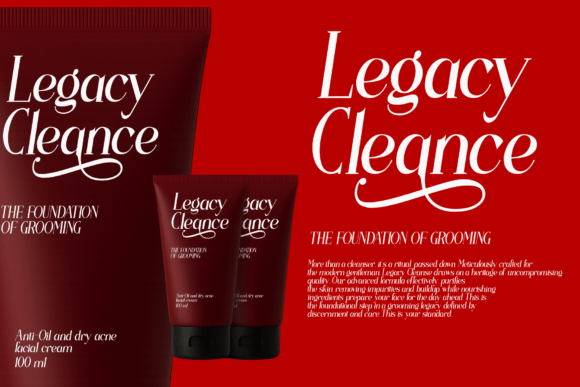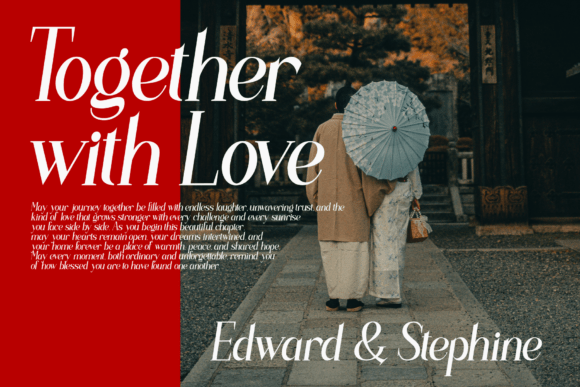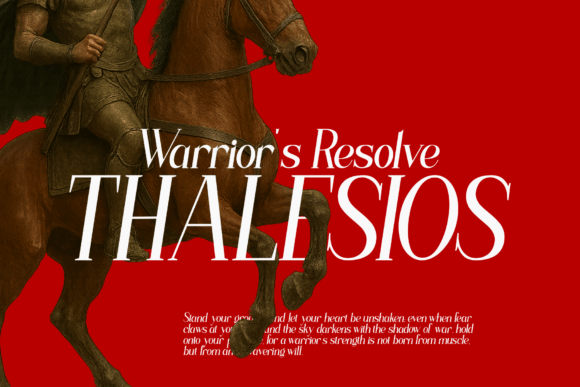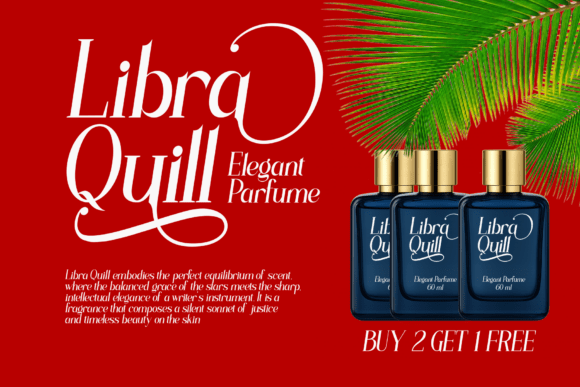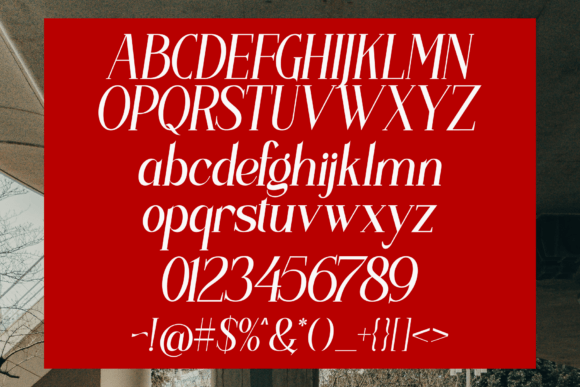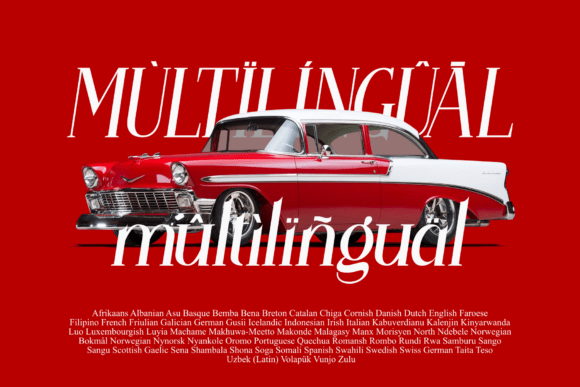
Introduction to Moralana Font
Introducing Moralana, a beautifully refined modern serif typeface that combines classic sophistication with artistic expression.
Each curve and detail is carefully designed to create a timeless yet contemporary appearance, ideal for projects that seek elegance and character With 358 glyphs, including uppercase, lowercase, numerals, punctuation, multilingual support, 23 ligatures, and 89 stylistic alternates, Moralana offers versatile design possibilities for distinctive typography.
Key Features of Moralana Font
Why Choose Moralana Font?